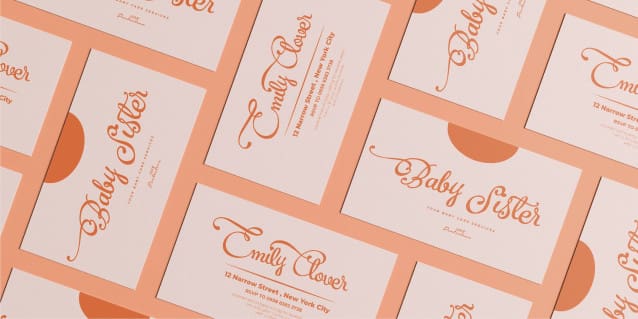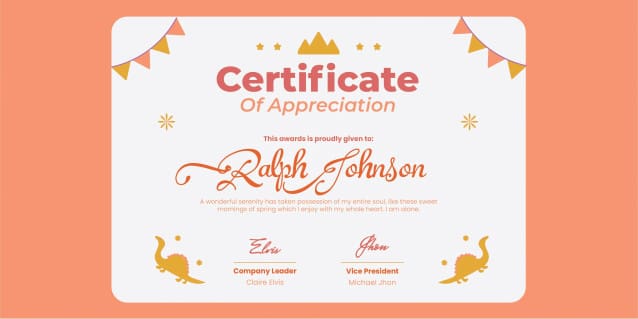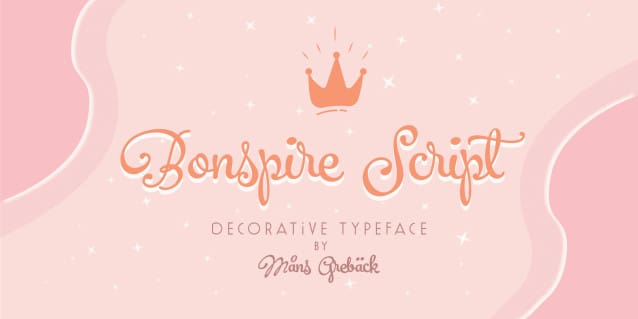
Bonspire Script Font
Bonspire Script Font, is a creative script font brimming with lively swashes and optimistic flair. Its swirly strokes lend it an air of playful sophistication, making it suitable for a heartfelt invite or an eye-catching advert.
Use underscore _ anywhere in a word for swashes.
Example: Love_rose
Use multiple underscore for different swashes.
Example: Wonder________woman